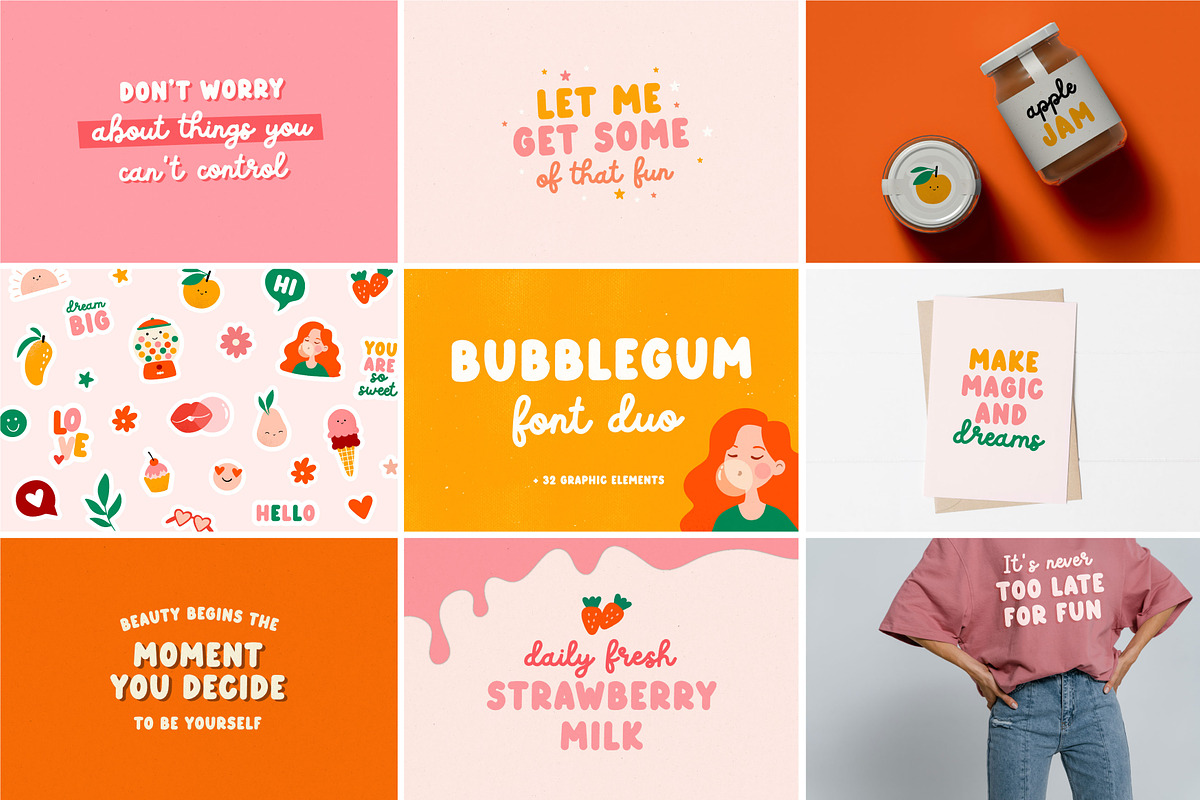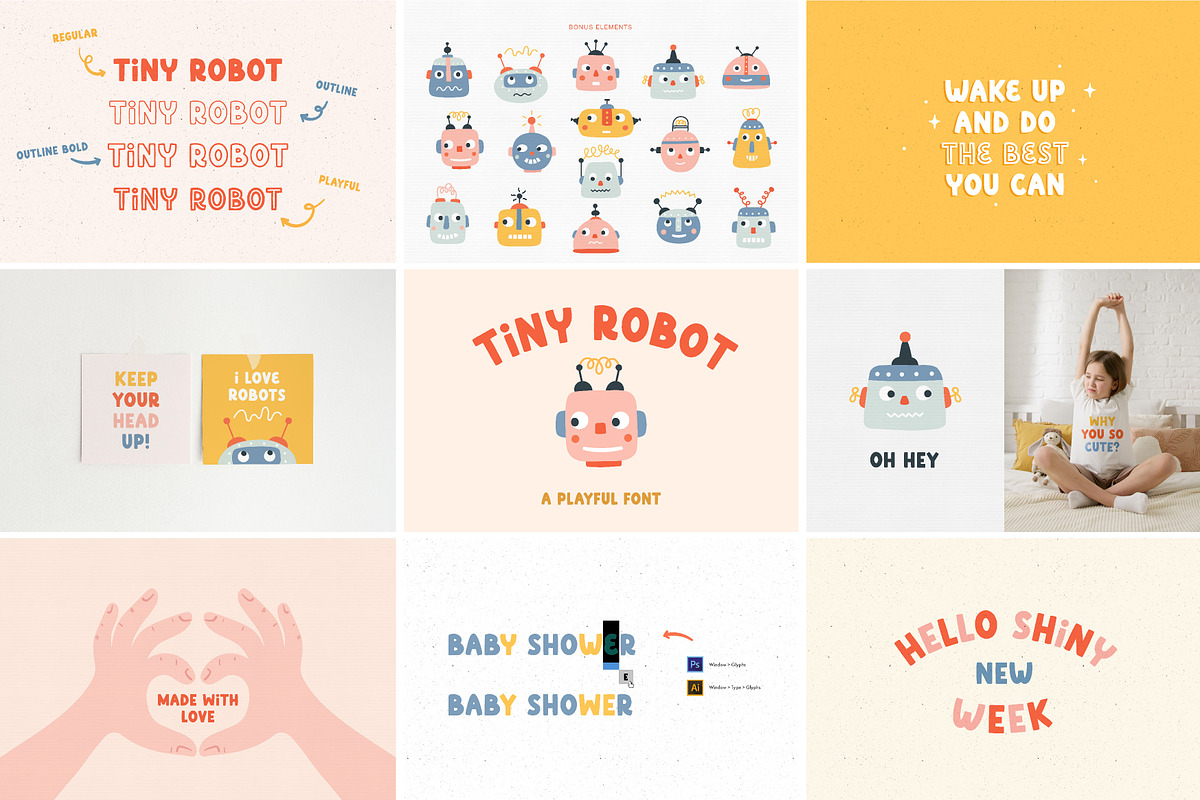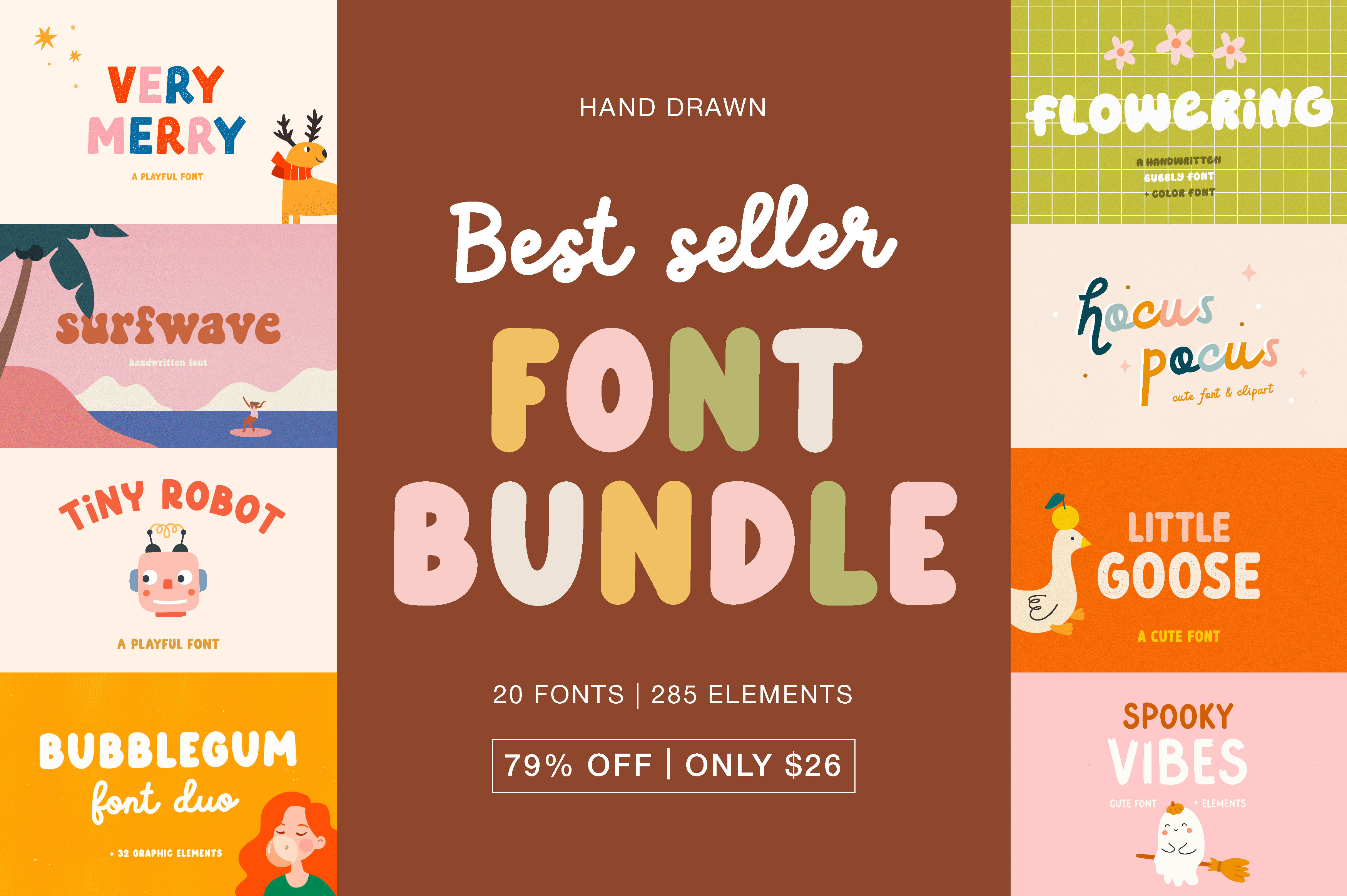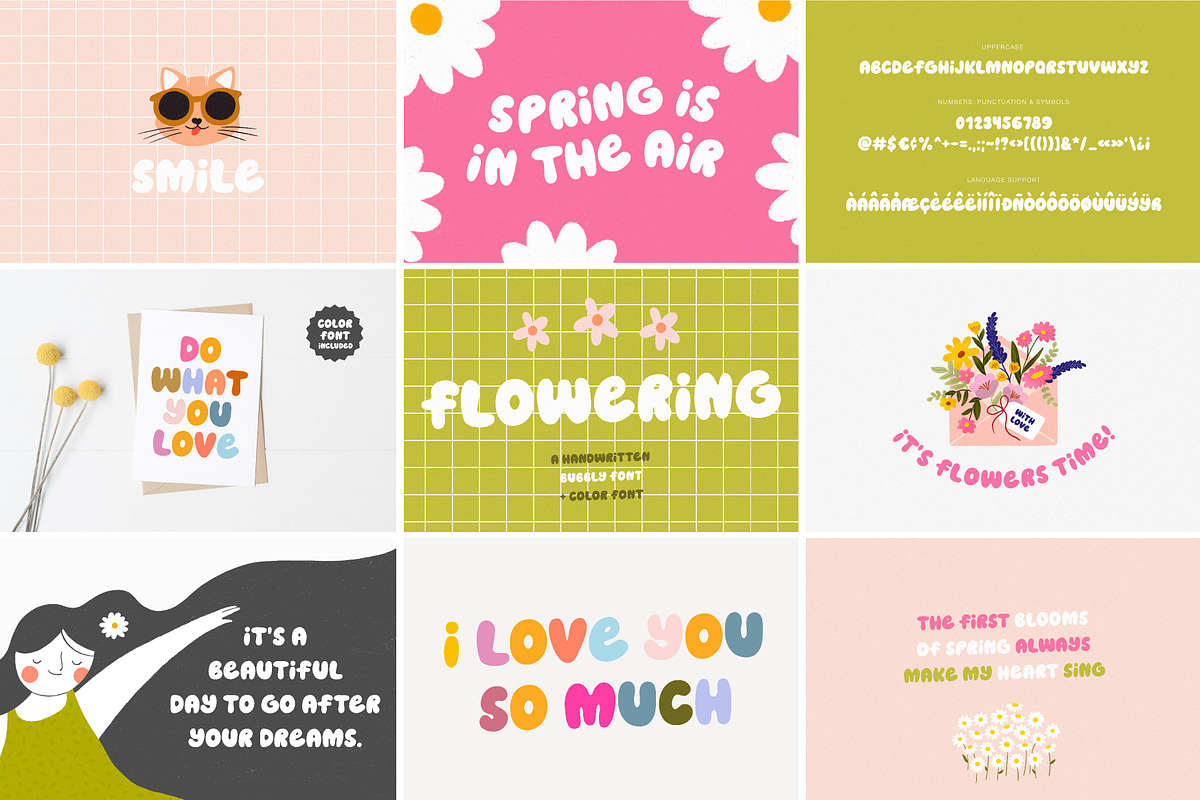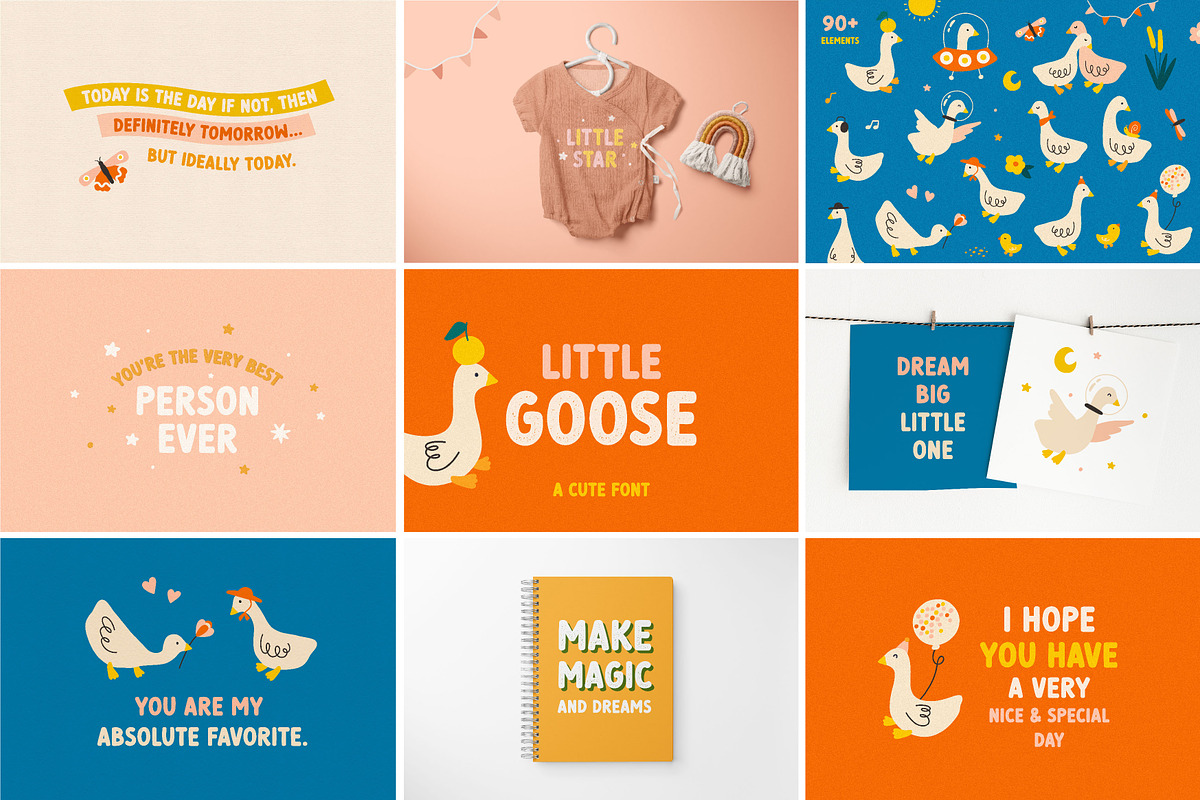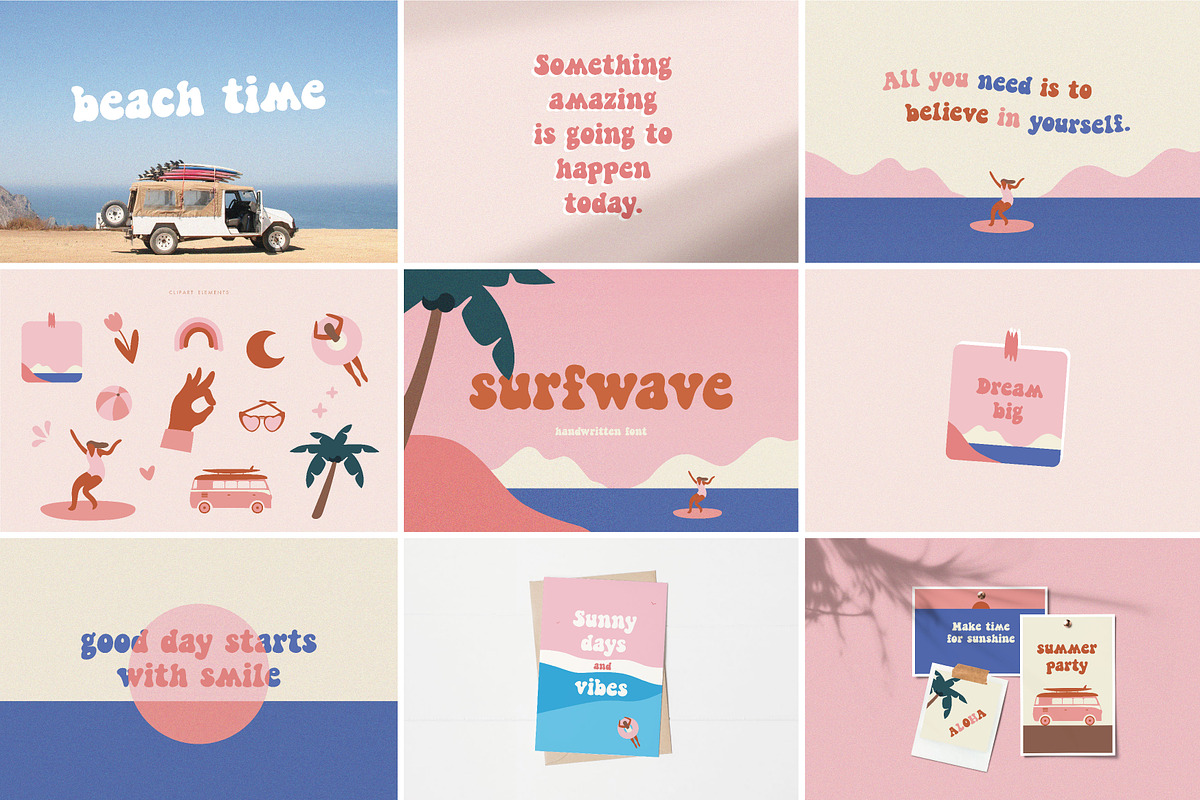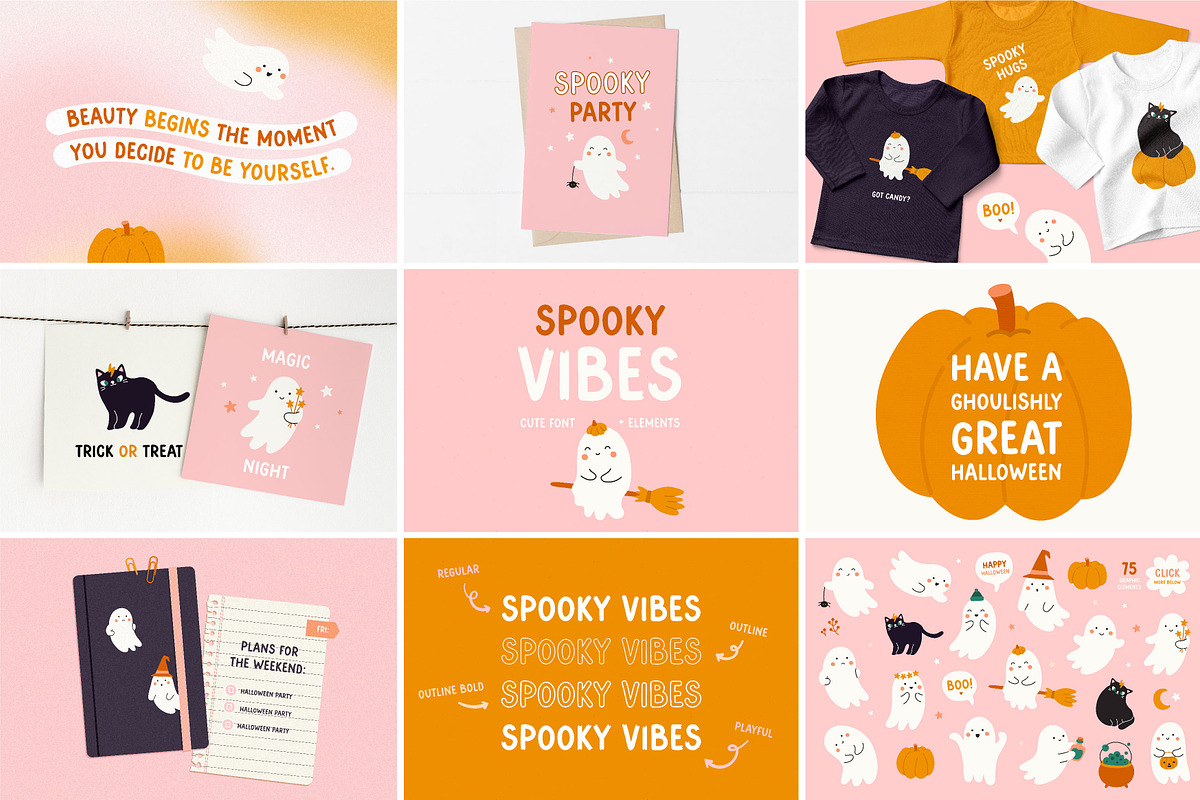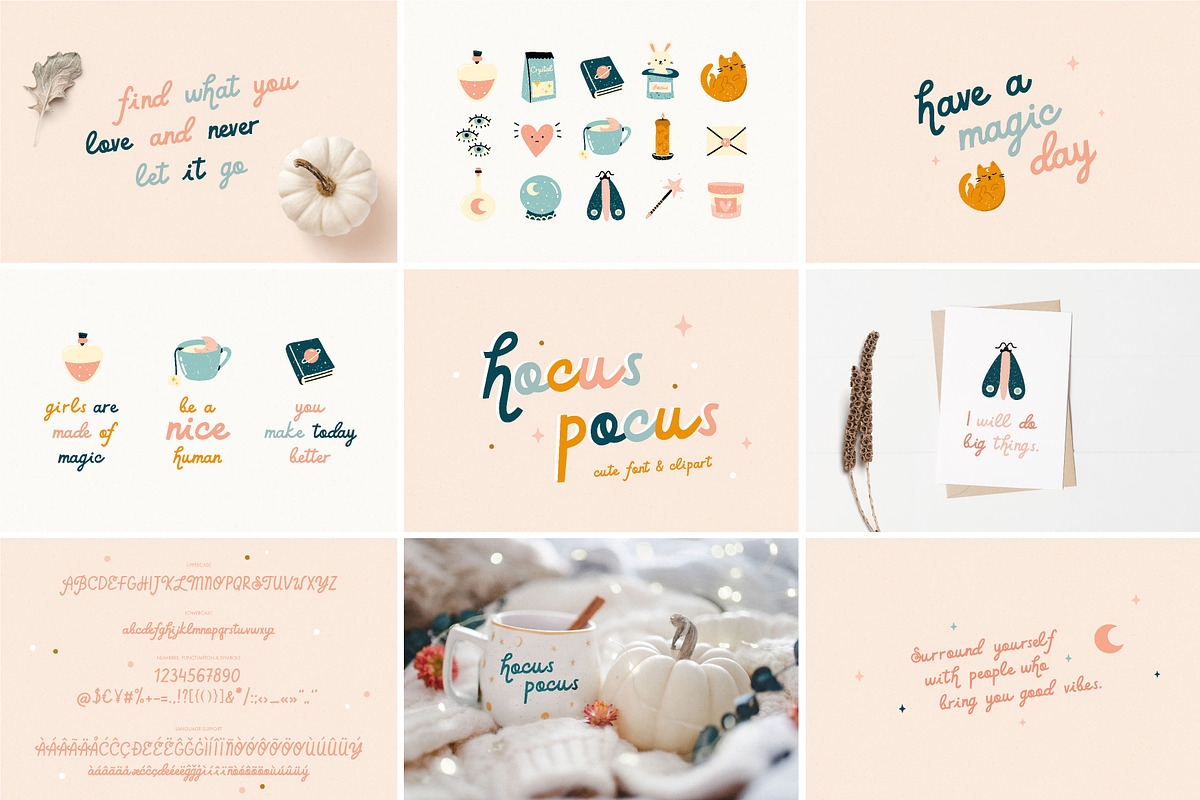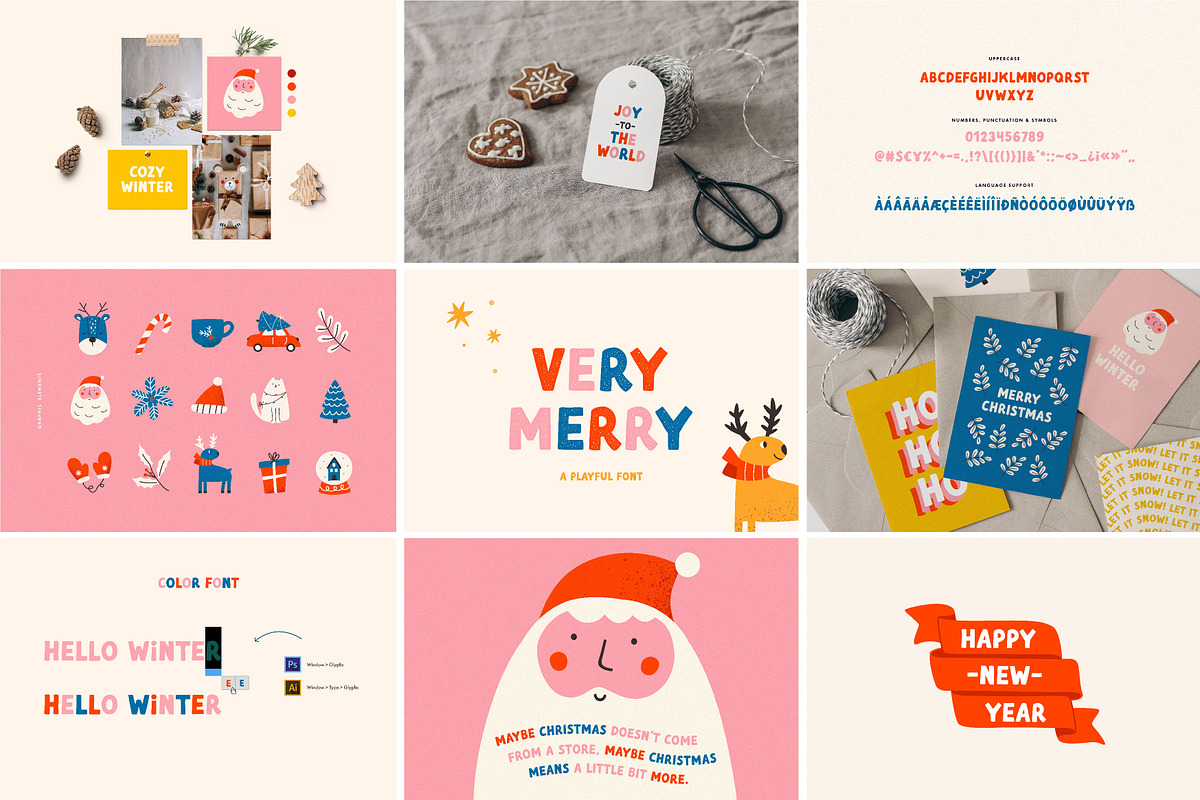
Best Seller Font BUNDLE
Introducing 20 lovely, best-selling fonts. Also, you will get 285 a fun graphic design elements. Hand drawn style provides an imperfect look, great to add a handmade touch to your projects.
- Bubblegum | Font duo https://crmrkt.com/8D40Jx
- Very Merry | Playful font https://crmrkt.com/mzm9ez
- Tiny robot | Playful font https://crmrkt.com/N1R46e
- Surfwave | Handwritten font https://crmrkt.com/dGgdJw
- Spooky Vibes | Cute font https://crmrkt.com/bp6a9x
- Hocus pocus | Cute font https://crmrkt.com/lv36eN
- Little goose | Cute font https://crmrkt.com/1PW2q2
- Flowering | Bubbly font https://crmrkt.com/aOygPB